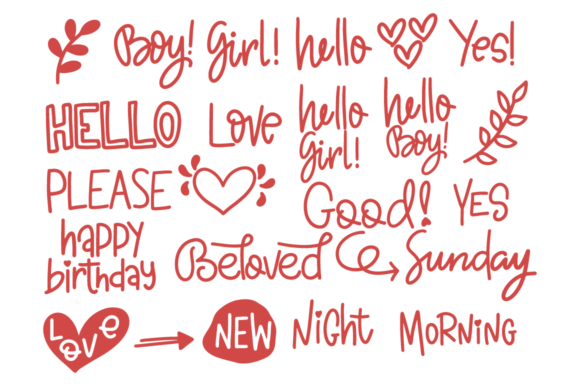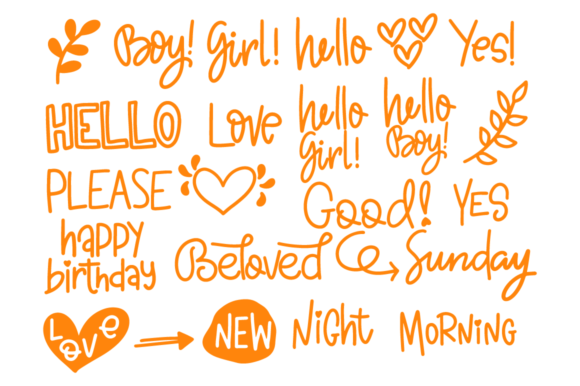
About Crefta Font
“Crefta” is a fun, useful, and jolly dingbats font that brings a playful touch to your design projects. No matter the topic or occasion, this font is a valuable asset to your fonts’ library, as it has the potential to elevate any creation and add a whimsical charm.
With “Crefta,” you have access to a wide range of delightful and versatile dingbats. From cute characters and symbols to whimsical illustrations and decorative elements, this font offers a plethora of options to enhance your designs. Whether you’re crafting, digital designing, creating presentations, or making greeting cards, “Crefta” is perfect for adding a touch of joy and cheer.
The font’s jolly and playful nature makes it suitable for various projects. Use it to create eye-catching posters, captivating social media graphics, engaging children’s books, lively invitations, and more. The dingbats in “Crefta” can be used to complement your text, add decorative accents, or even tell a story on their own. Let your imagination run wild as you explore the possibilities of this font.
Using “Crefta” is a breeze. Simply select the desired dingbat from the font’s character set and incorporate it into your design. You can adjust the size, color, and positioning of the elements to fit your aesthetic preferences and make them stand out. Mix and match different dingbats to create unique compositions and playful scenes.
The versatility of “Crefta” allows you to explore a wide range of topics and themes. Whether you’re designing for birthdays, holidays, celebrations, or everyday whimsy, this font has the elements to bring your ideas to life. The jolly characters and symbols can evoke a sense of joy and delight in your audience, making your creations more engaging and memorable.
In conclusion, “Crefta” is a fun, useful, and jolly dingbats font that has the power to elevate any creation. Its playful nature and versatile collection of dingbats make it a valuable asset to your fonts’ library. Whether you’re crafting, digital designing, presenting, or making greeting cards, “Crefta” allows you to infuse your designs with a delightful and whimsical charm. Embrace the creative possibilities and let “Crefta” add a touch of joy to your projects.